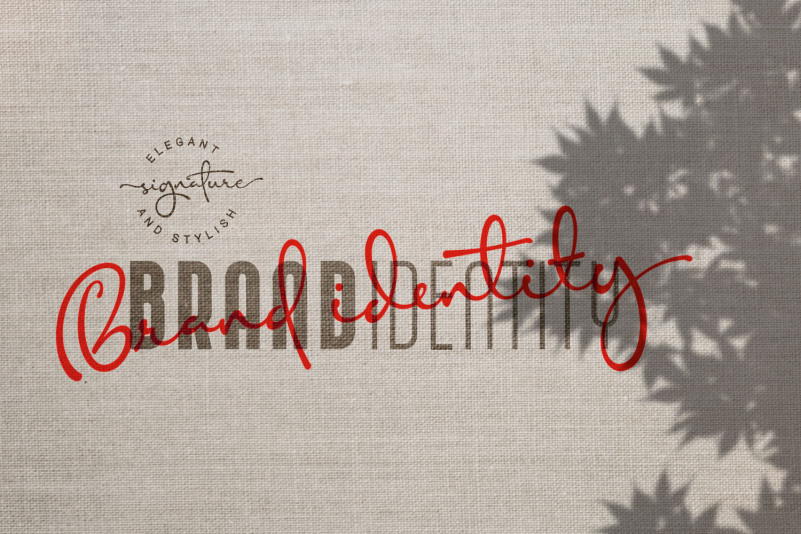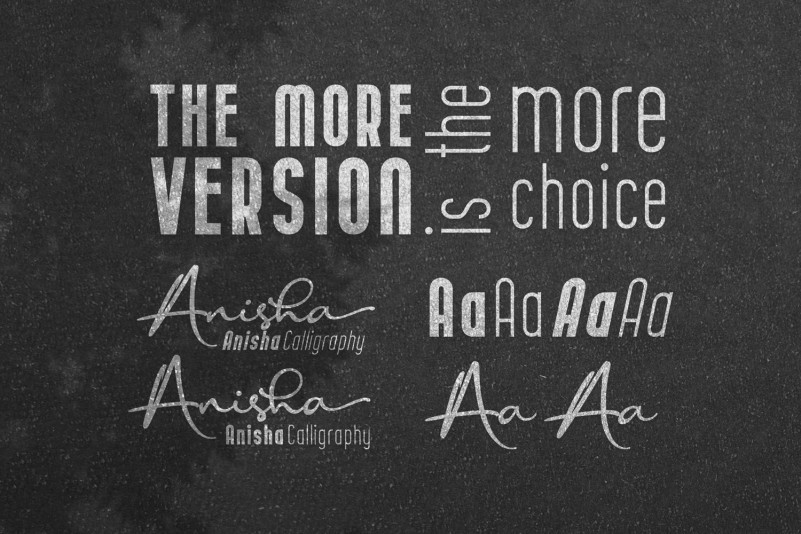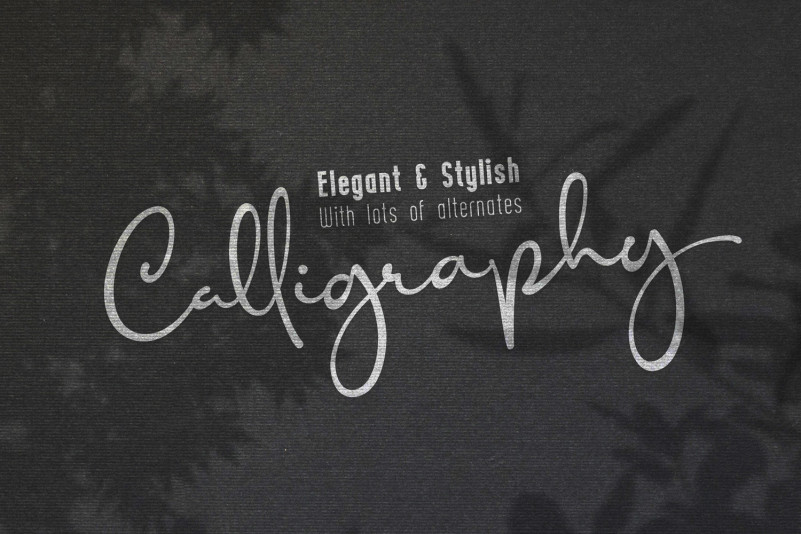
Anisha Handwritten Font
“Anisha Handwritten Font”. This font is the Great choice for brand identity, branding and just branding … we have studied various branding of modern products and we found a very interesting style, which is a combination of “calligraphy signature and clean sans”. This is like combining two different elements and together in a composition that is very luxurious and elegant.
Anisha calligraphy, bold and thin sans, all of which consist of regular and slant versions, so the number of fonts in this package consists of 6 fonts, the more choices the more design combinations you can make.
Anisha is a beautiful high fashion font that makes for gorgeous logos, posters, blog posts, social media, and more!
I love using them together with layer masks in Photoshop, so it looks like the script is running through the lines of the sans serif.
Anisha Script includes 2 alternates for uppercase and 4-5 alternates for lowercase, and additional ligatures to make everything look totally hand-done.